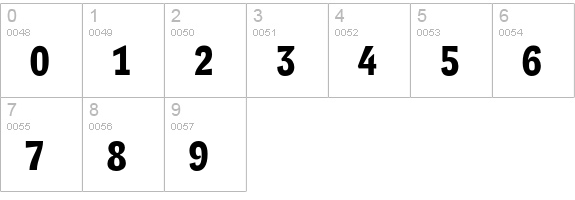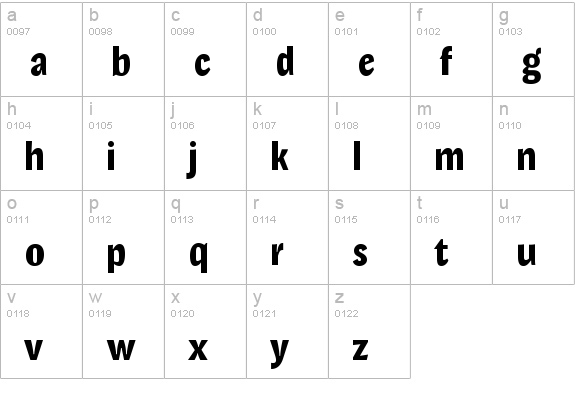
LexiconHeadline-Regular Font Details
LexiconHeadline-Regular is the standard, neutral variant in the LexiconHeadline typeface family \xE2\x80\x94 well suited to general body text, paragraphs, and standard typographic work.
LexiconHeadline-Regular font is a stylish and versatile typeface that will add a touch of elegance to your design projects. With its clean lines and modern aesthetic, this font is perfect for headlines, titles, and display text. Whether you are creating a logo, poster, or website, LexiconHeadline-Regular font will make your design stand out. What sets LexiconHeadline-Regular font apart is its ability to convey both sophistication and playfulness. The letters are carefully crafted with attention to detail, resulting in a well-balanced and visually pleasing typeface. The geometric shapes and rounded edges give this font a contemporary feel, making it a great choice for a wide range of design styles. One of the best things about LexiconHeadline-Regular font is that it is freely available to download at FontsMarket.com. This means that you can use this font in your personal and commercial projects without any restrictions. Whether you are a professional designer or a hobbyist, you can easily access and use this font to bring your ideas to life. With its wide range of glyphs and extensive language support, LexiconHeadline-Regular font is suitable for various design purposes. It includes uppercase and lowercase letters, numbers, punctuation marks, and special characters, allowing you to create visually appealing and well-crafted designs. In conclusion, LexiconHeadline-Regular font is a must-have for designers looking to add a touch of elegance to their projects. With its modern aesthetic, versatility, and the fact that it is freely available to download at FontsMarket.com, this font is a valuable addition to any design toolkit. So go ahead and give your designs a professional and stylish look with LexiconHeadline-Regular font.